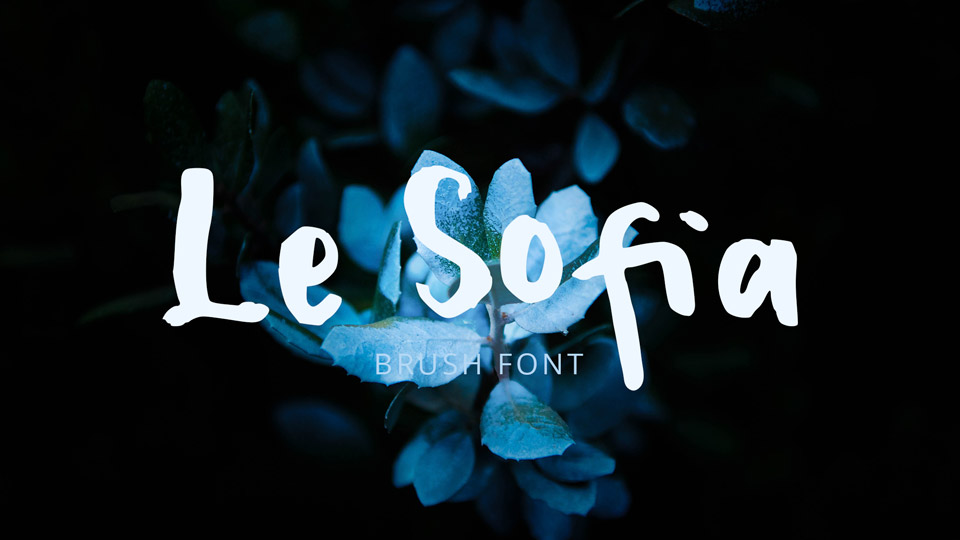
Download Le Sofia font, a simple hand painted brush typeface. Le sofia font is suitable for crafts, cards, social media, quotes and more.
Designer: Nenny Septiana